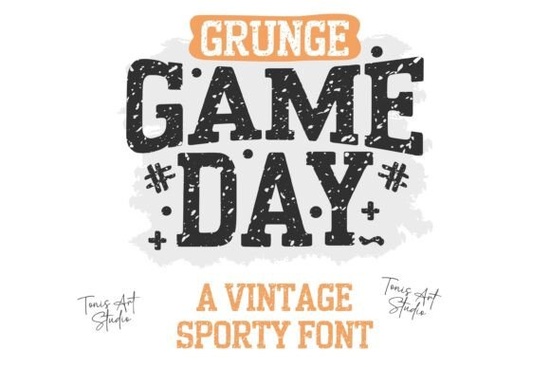
If you're creating sports-themed designs whether for a local team, a print-on-demand shop, or weekend crafting projects you need a font that captures energy, grit, and team spirit without looking generic. That’s where Game Day Font comes in. This bold, varsity-style typeface features a distressed, grunge finish that mimics the look of well-worn jerseys and gym lockers, giving your designs an authentic athletic edge.
Unlike clean, modern fonts that feel too polished for sports contexts, Game Day leans into texture and character. It works especially well for football, basketball, and baseball branding but adapts easily to any high-energy theme. Whether you’re designing T-shirts, sublimation mugs, social media banners, or Cricut vinyl decals, this font adds instant attitude without overwhelming your layout.
What makes Game Day Font stand out for crafters and designers?
Second, the distressing is baked into the letterforms, so you don’t need to add extra textures or overlays to get that rugged look. This saves time and keeps your files clean. The bold slab-serif structure ensures readability even at smaller sizes, which is crucial for jersey numbers, water bottle labels, or Instagram story graphics.
Who should use this font and how?
- Print-on-demand sellers: Create mockups for sports fan apparel, gym bags, or motivational wall art that stands out in crowded marketplaces.
- Small sports businesses: Use it for team logos, event flyers, or promotional social posts that feel cohesive and energetic.
- Crafters and hobbyists: Cut vinyl letters for locker signs, stencil quotes onto wood plaques, or design custom iron-ons for game-day hoodies.
- Digital designers: Build templates in Canva or Photoshop for coaches, schools, or rec leagues who need quick, professional-looking graphics.
Because Game Day is a single-style font (not a full family with italics or light weights), it works best as a display typeface ideal for headlines, names, slogans, or short phrases. Avoid using it for body text or long paragraphs; its strength lies in impact, not subtlety.
How does it compare to other sports fonts?
Many “sports” fonts online are either too cartoonish or overly sleek. Game Day strikes a balance: it’s stylized but still legible, rough but not chaotic. Its slab-serif foundation gives it stability, while the distressed edges add personality. If you’ve tried other varsity fonts and found them too stiff or too busy, this one might be the middle ground you’ve been missing.
For those building a toolkit of go-to athletic fonts, pairing Game Day with cleaner sans-serifs (like Helvetica or Montserrat) creates strong visual contrast bold headlines over simple captions, for example. And if you’re curating a collection of rugged typefaces, don’t miss our guide to other slab-serif fonts with a game-day feel, which includes alternatives with different levels of wear and weight.
Practical tips for using Game Day Font effectively
- Scale matters: Use it large enough that the distress details read clearly under 24pt and the texture may blur on screen or in print.
- Pair wisely: Combine with neutral, clean fonts for supporting text to avoid visual clutter.
- Test on materials: If you’re cutting vinyl or printing on fabric, do a small test first the bold strokes may need slight adjustments depending on your medium.
Whether you’re making a birthday shirt for a little league player or designing a full merch line for a semi-pro team, Game Day Font delivers that unmistakable sports energy without trying too hard. It’s the kind of tool that becomes a staple in your creative kit not because it’s flashy, but because it just works.
Before you start your next project, ask yourself:
- Is my design meant to convey toughness, tradition, or team pride?
- Will the font be used for short, impactful text (not paragraphs)?
- Have I tested how it looks on my final output screen, vinyl, or printed fabric?
If you answered yes to all three, Game Day Font is likely a smart, reliable choice.